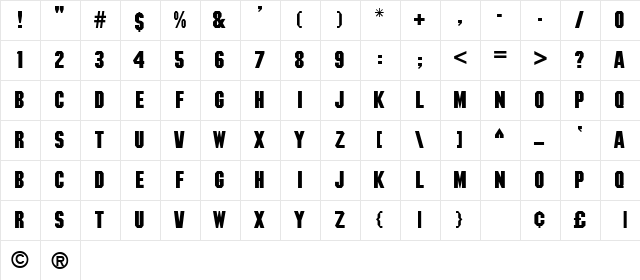
Machined Bold
Design Context for Machined Typeface
Machined offers clean, dependable letterforms without strong stylistic allegiance, making it a practical choice for designers who need flexibility. Its bold stroke weight gives it real presence on the page.